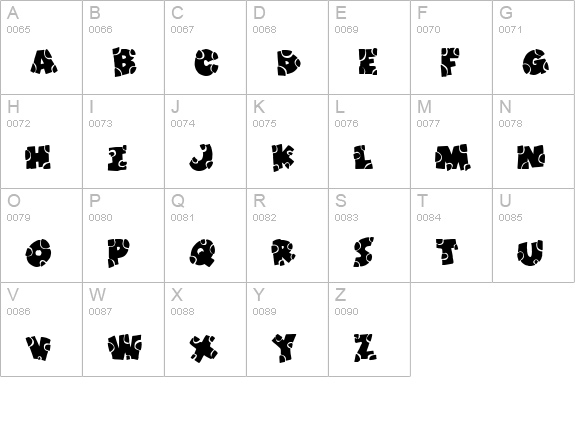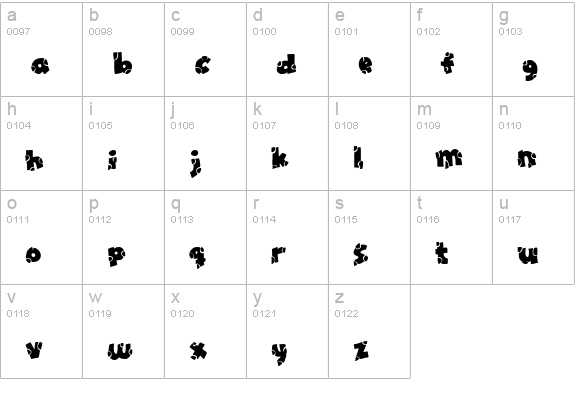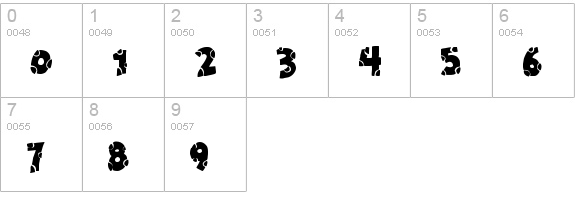
Broken Toys Font Details
Introducing Broken Toys font, a playful and whimsical typeface that brings a touch of nostalgia and charm to your designs. With its unique, hand-drawn style and irregular letterforms, Broken Toys is perfect for adding a quirky and fun element to any project. This font is ideal for children's books, greeting cards, posters, and more. Best of all, Broken Toys font is completely free to download at FontsMarket.com. That's right, you can add this delightful font to your collection at no cost. So why wait? Bring a bit of whimsy and joy to your designs with Broken Toys font today!